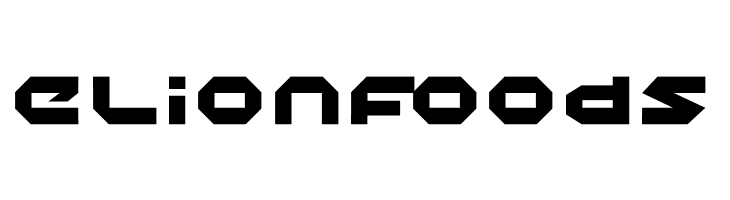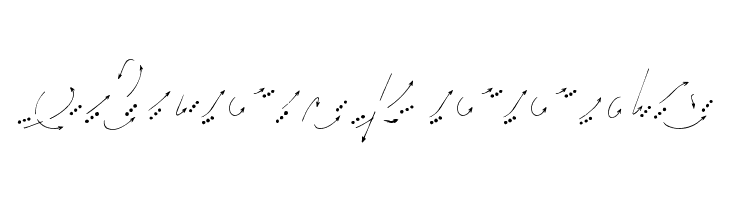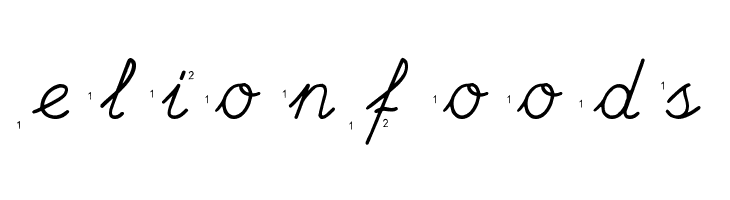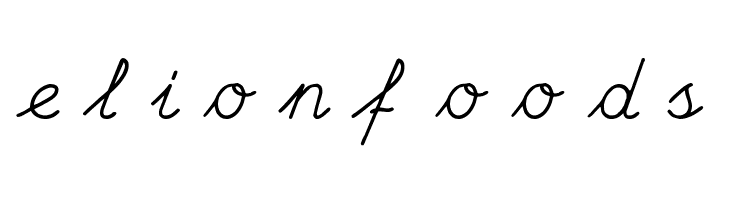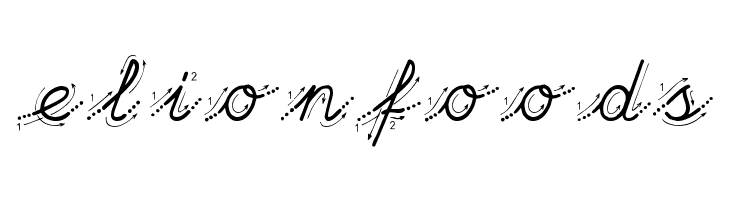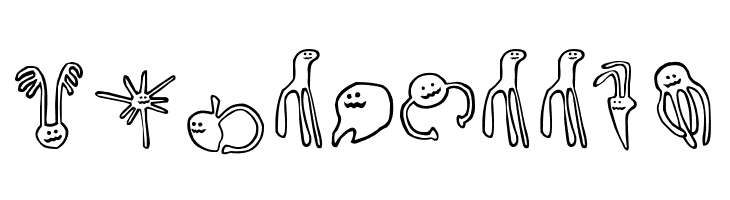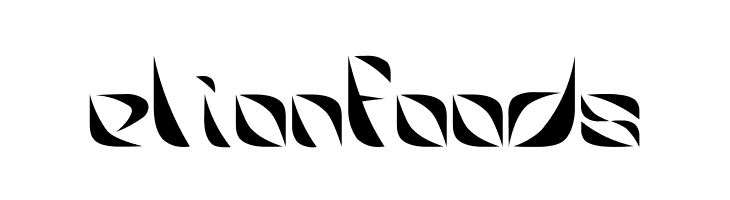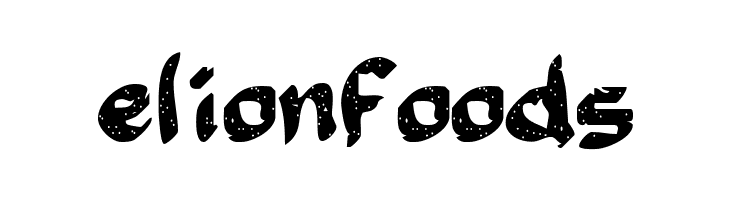
A bold, hand-drawn font with a playful and artistic style.
A decorative font with cartoon faces representing each character.
A bold, angular font with a futuristic and aggressive design.
A sharp, angular font with a futuristic and dynamic style.
A bold, angular, and italicized font with a futuristic and dynamic style.
A bold, geometric outline font with sharp angles and a futuristic style.
A bold, angular outline font with a dynamic italic slant.
A bold, handwritten font with a playful and informal style.
A playful, handwritten font with fluid and organic strokes.
A bold, textured font with a playful, distressed design.
A bold, distressed font with a vintage, grunge aesthetic.
An elegant serif font with a classic italic style and smooth, flowing lines.
An elegant serif font with a classic italic style and high contrast.
An elegant serif font with italicized characters and medium contrast.
A classic serif typeface with an elegant italic slant and moderate contrast.
A decorative, leaf-inspired font with bold, high-contrast strokes.
Decorative lighthouse and coastal building illustrations replace standard characters.
A bold, geometric font with a futuristic, stencil-like design.